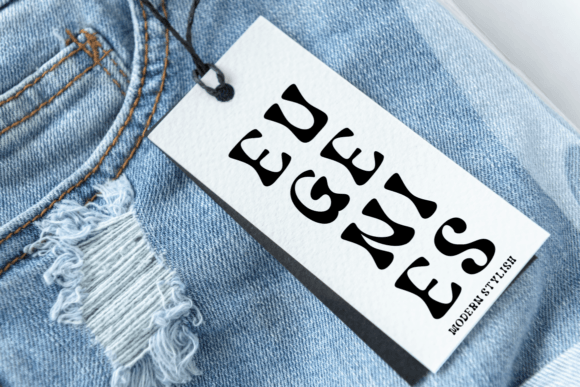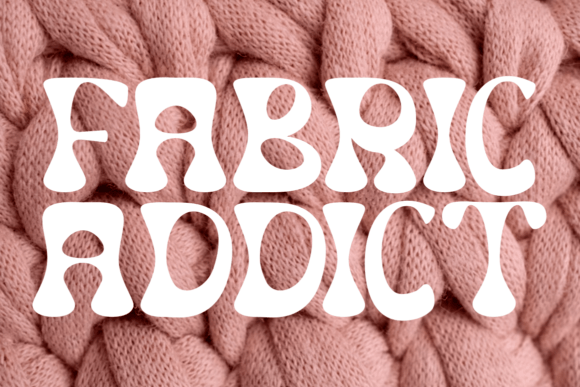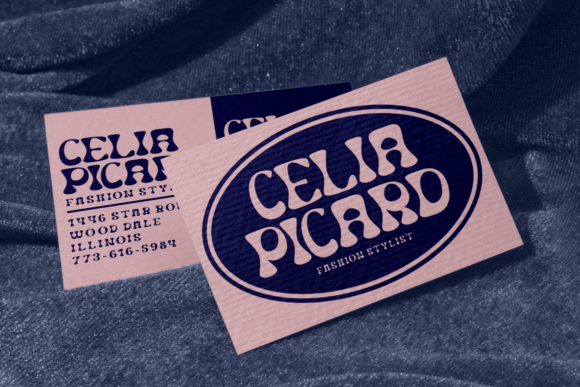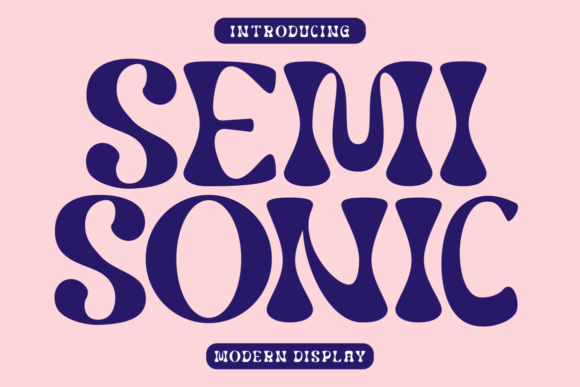
Introduction to Semisonic Font
Semisonic is a captivating modern display font that defies convention and stands out from the ordinary.
It seamlessly blends the essence of modernity with a fusion of sans serif and decorative elements, creating a font that’s truly exceptional This unique font is the perfect choice for those seeking to make a bold statement in their designs.
Key Features of Semisonic Font